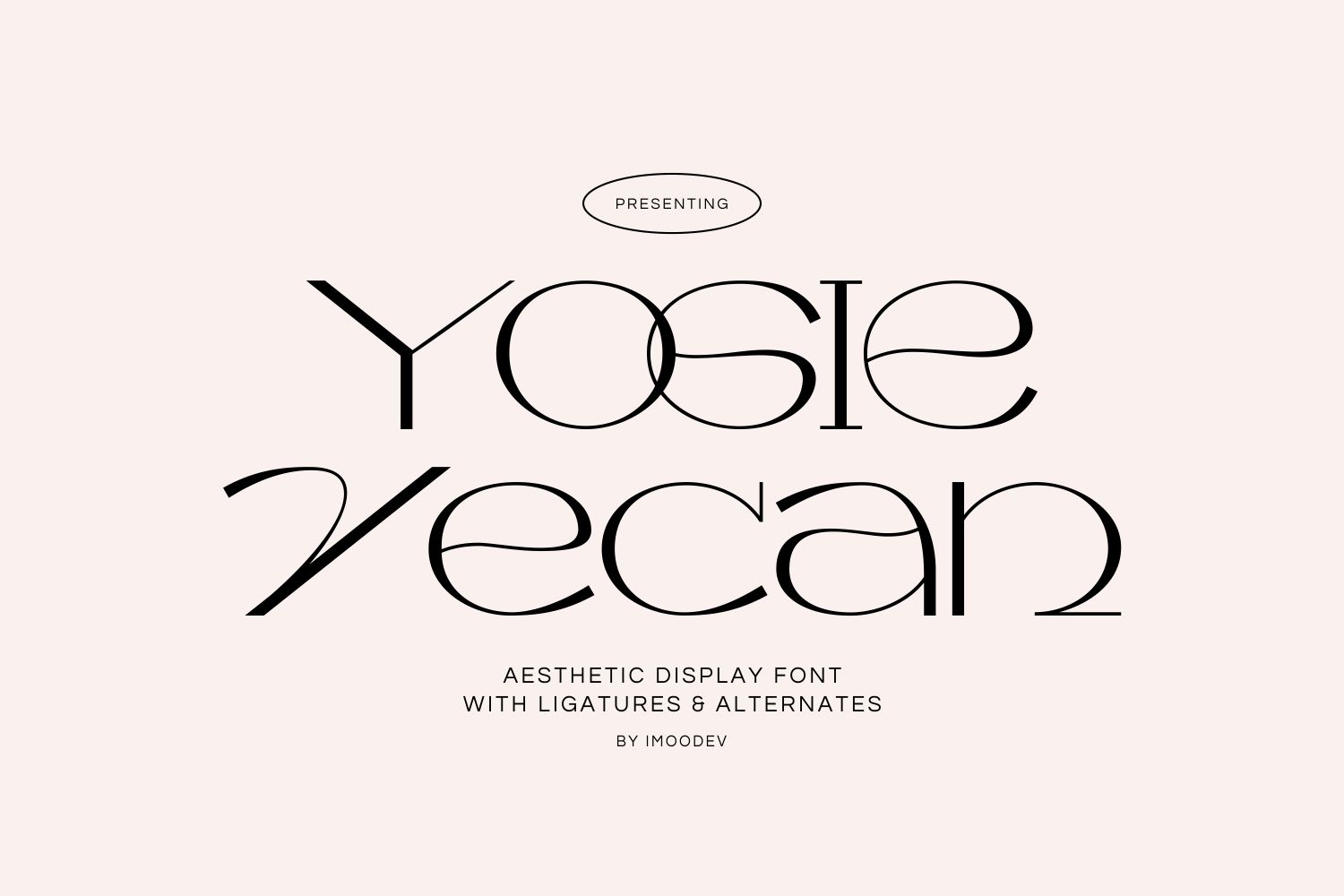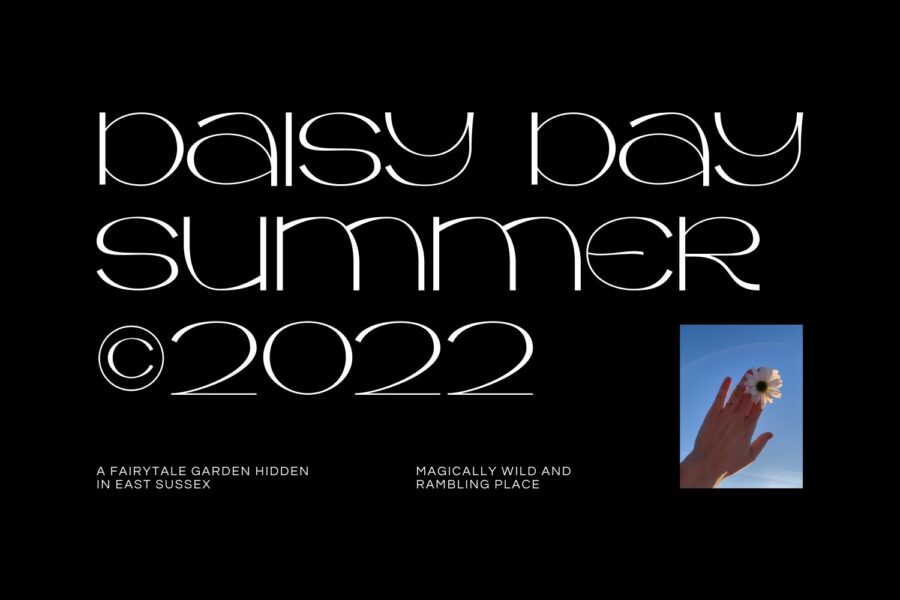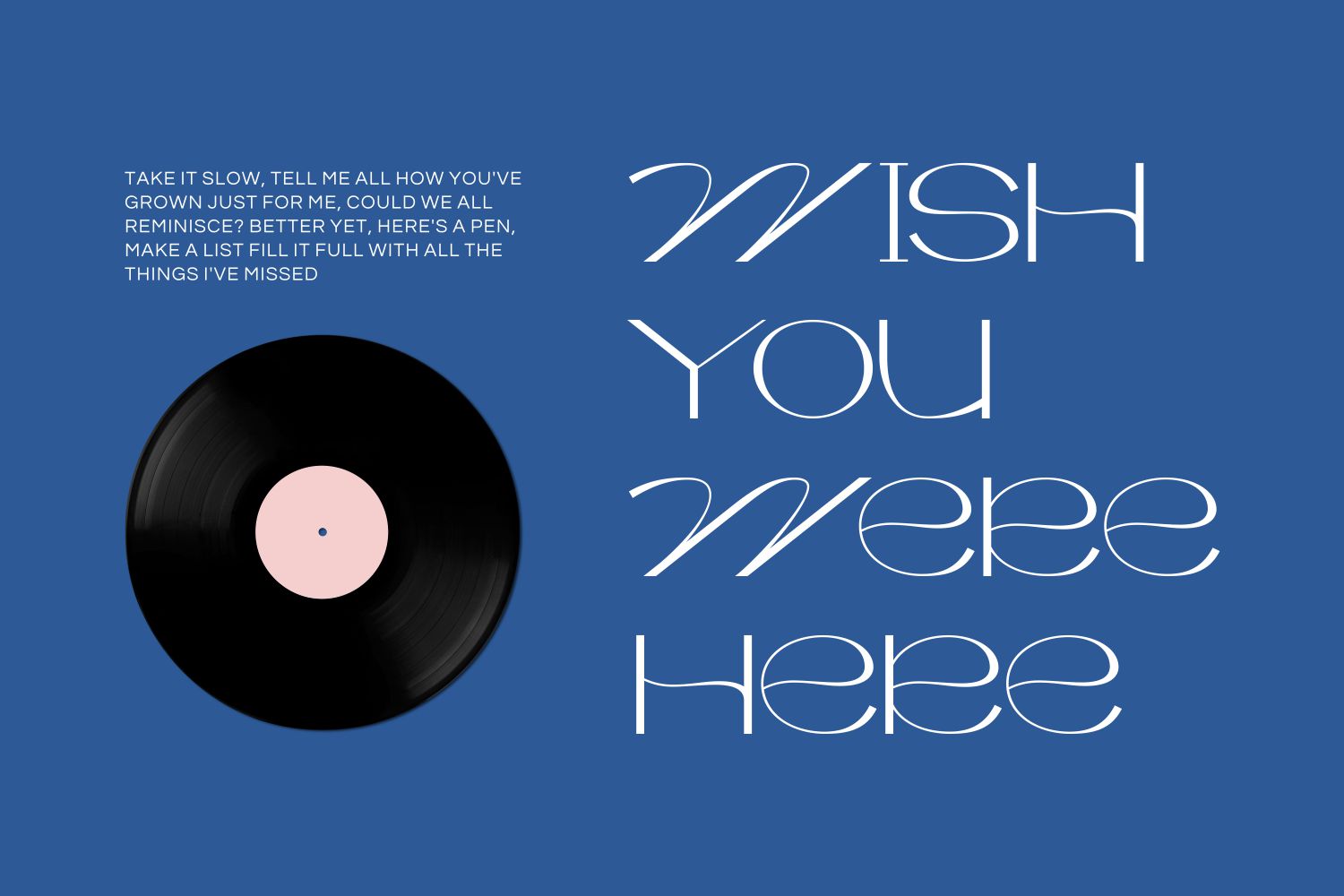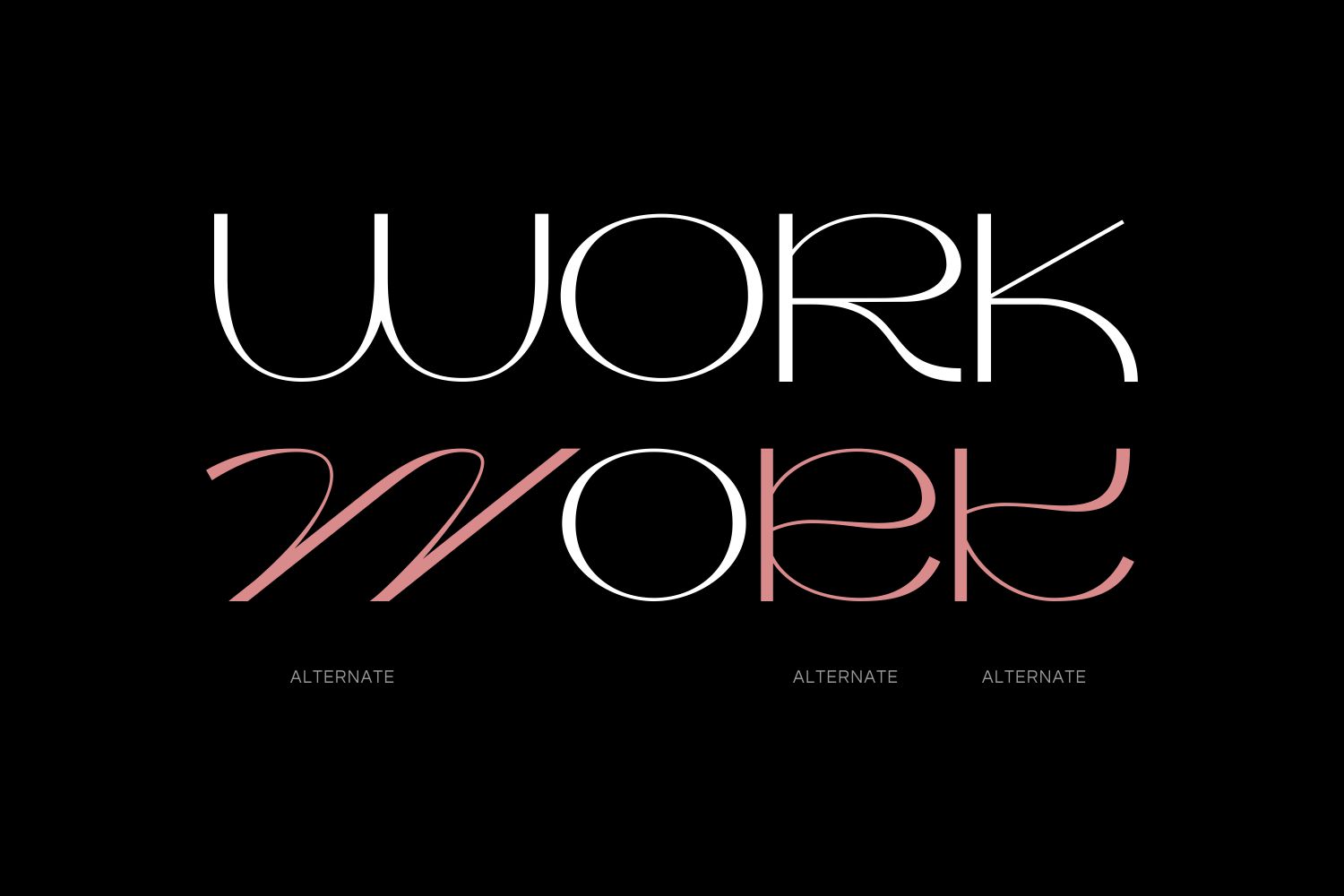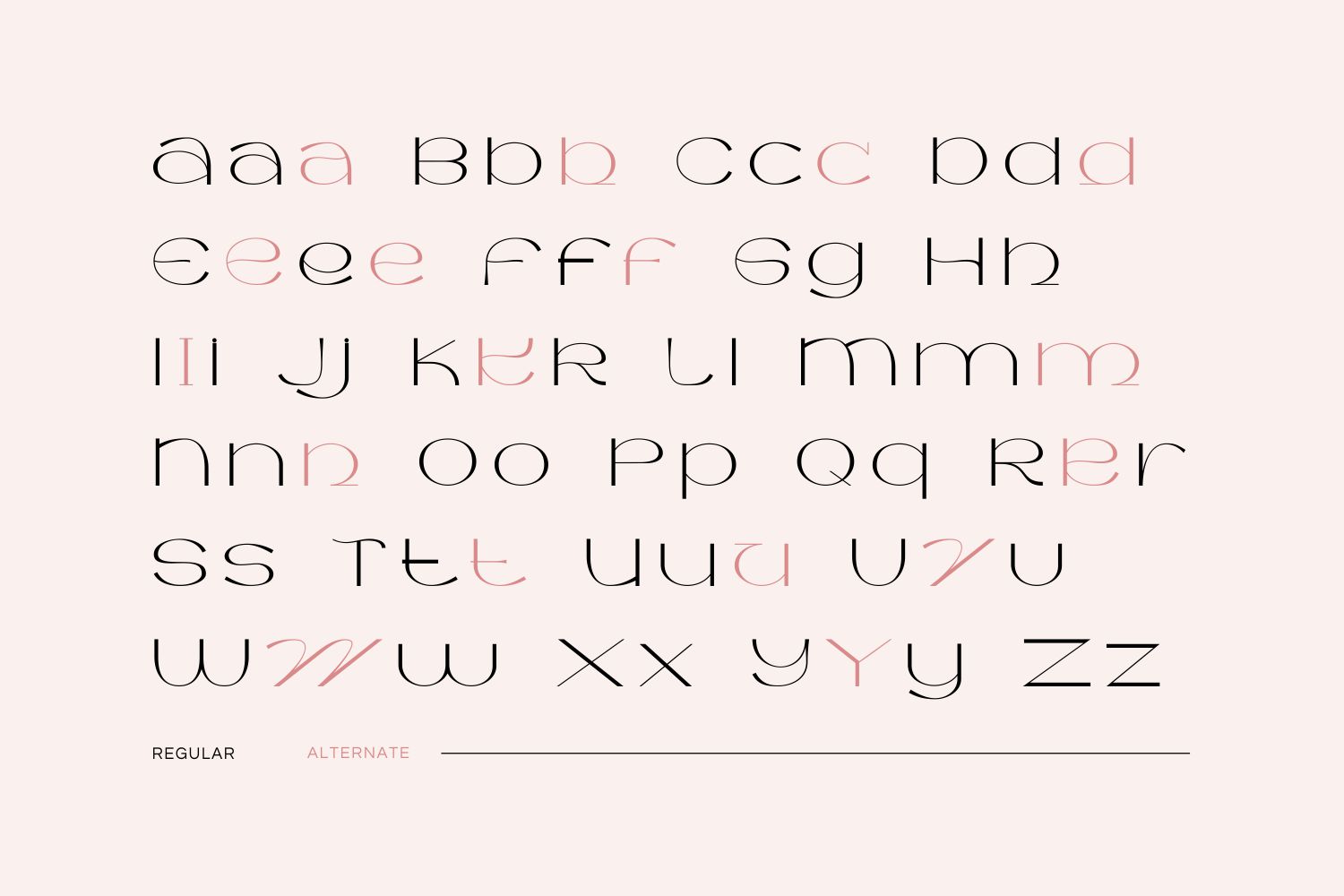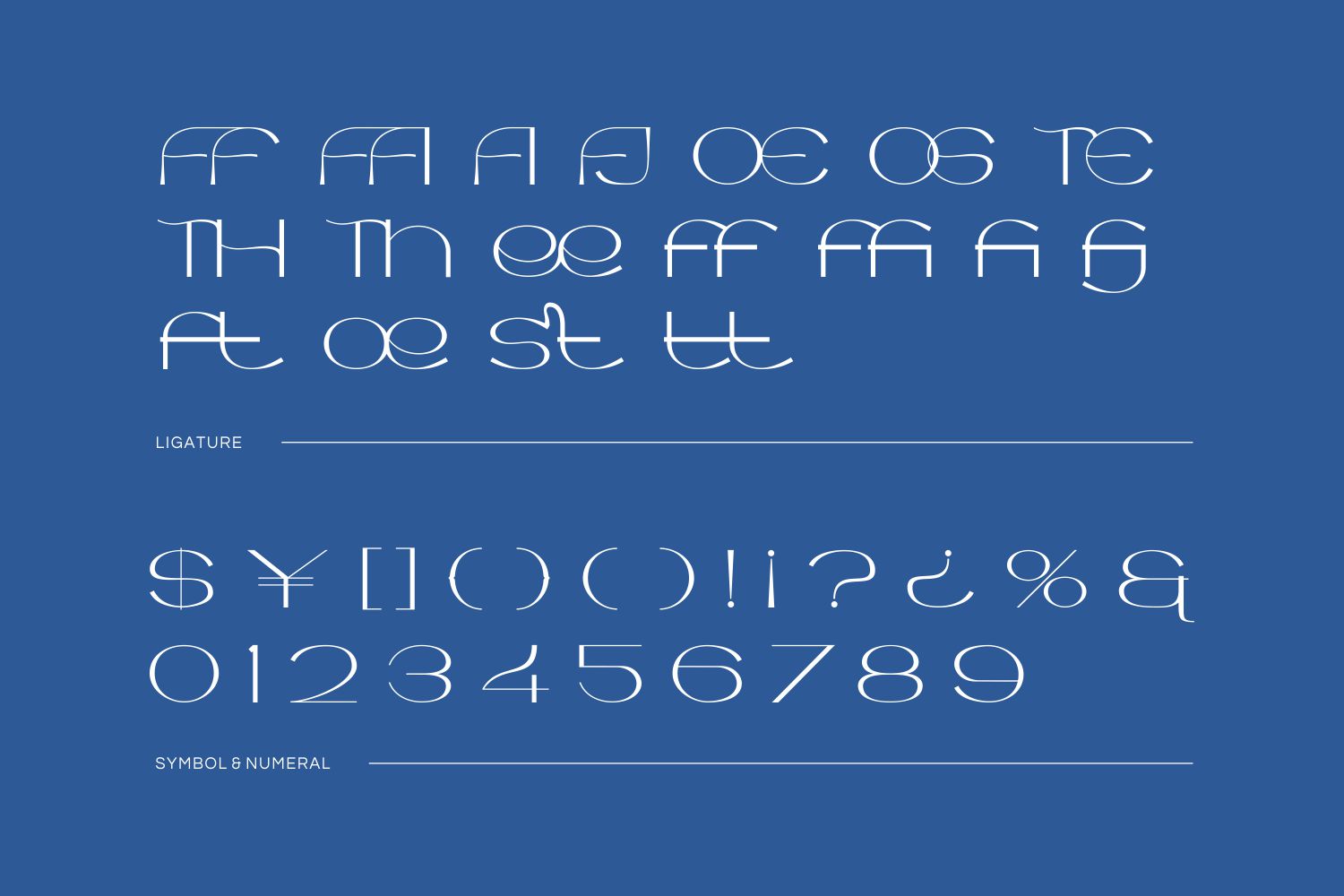
Yogie Vecan
Yogie Vecan is a modern aesthetic display font that blends elegance with experimental forms. Its sleek strokes, thin contrasts, and stylish alternates make it a perfect choice for projects that demand sophistication and creativity. The unique ligatures and alternates add a touch of exclusivity, ensuring that every design stands out with a contemporary and refined look.
Ideal for branding, fashion editorials, packaging, invitations, and digital content, Yogie Vecan brings a high-fashion vibe to any project. Its versatile design allows for bold statement headlines while maintaining a delicate and artistic flair, making it a perfect companion for designers who want to elevate their work with a modern and luxurious typeface.